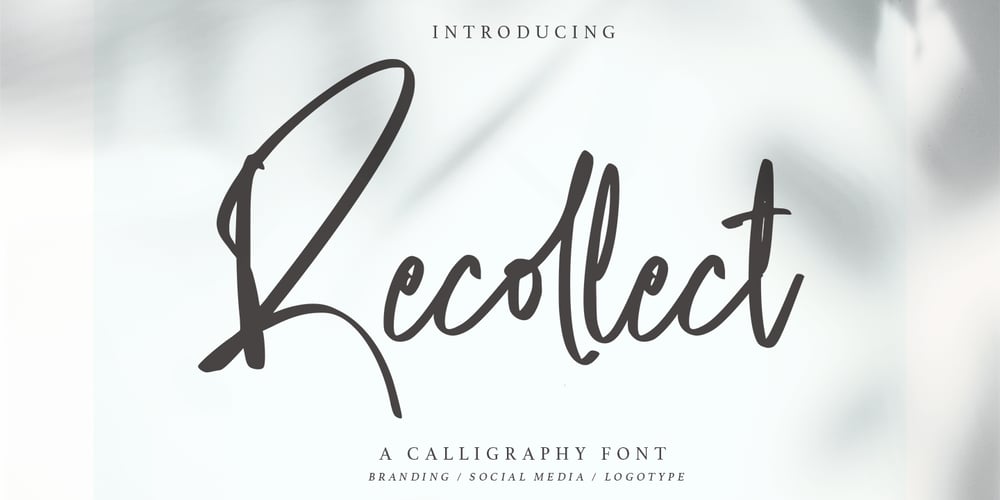
Recollect Font Family was designed by Asep Rendi and published by Arendxstudio. Recollect contains 1 styles and family package options. Introducing a Recollect – Handwritten Script Font with sharp and beautiful letters that create fonts that are modern, trendy and elegant. Matsuyama came with opentype features such stylistic alternates, stylistic sets & amp; amp; ligatures good for logotype, poster, badge, book cover, tshirt design, packaging and any more.Features : • Character Set A-Z • Numerals & Punctuations (OpenType Standard) • Accents (Multilingual characters) • Ligature • AlternateThere it is! I really hope you enjoy it